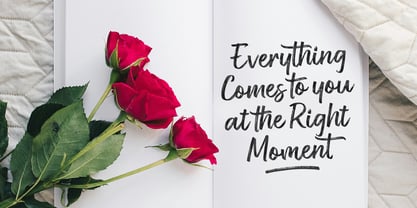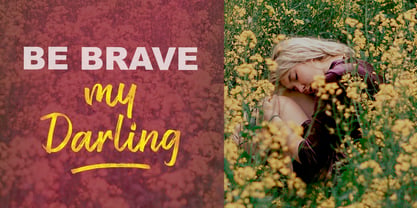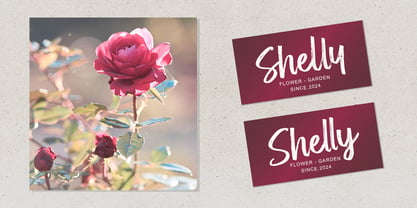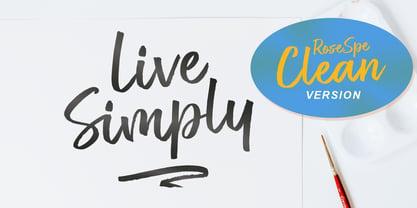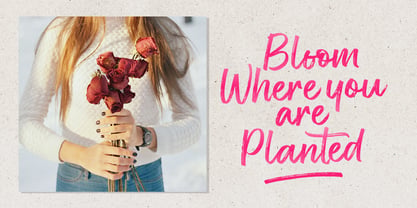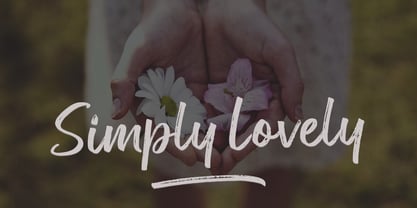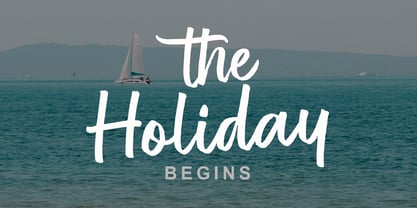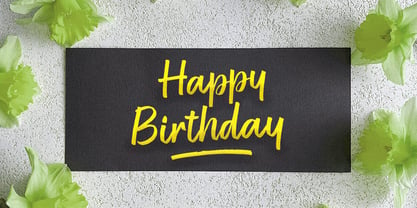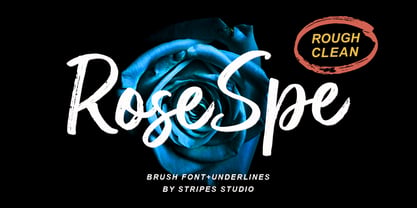
Rose Spe
by Stripes Studio
The Rose Spe Font Family was designed by Yur Lis and published by Stripes Studio. Rose Spe contains 4 styles and family package options. More about this family
Rose Spe Brush is a super casual hand brushed script with detailed brush stroke texture,
and a quirky, Can be used for various purposes. such as the title, signature, letterhead,
signage, labels, newsletters, posters, logos, correspondence, wedding invitations, badges, etc.
Designers: Yur Lis
Foundry: Stripes Studio